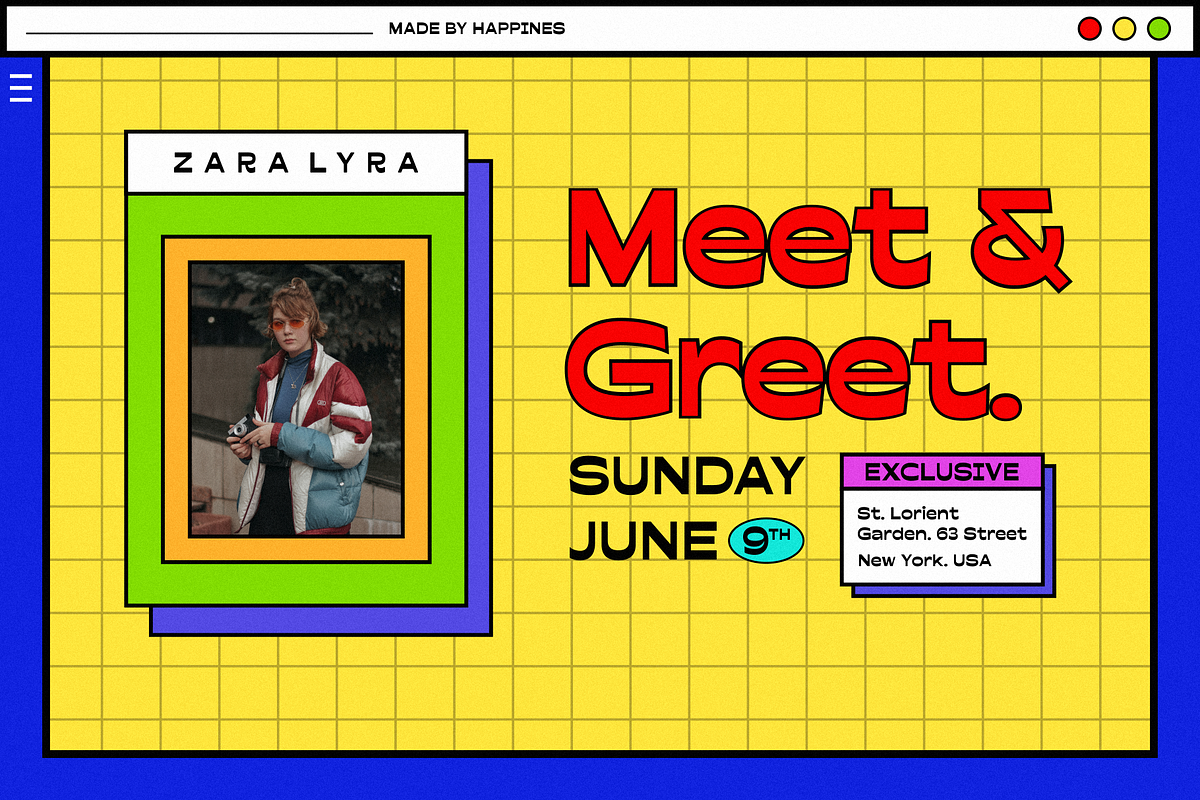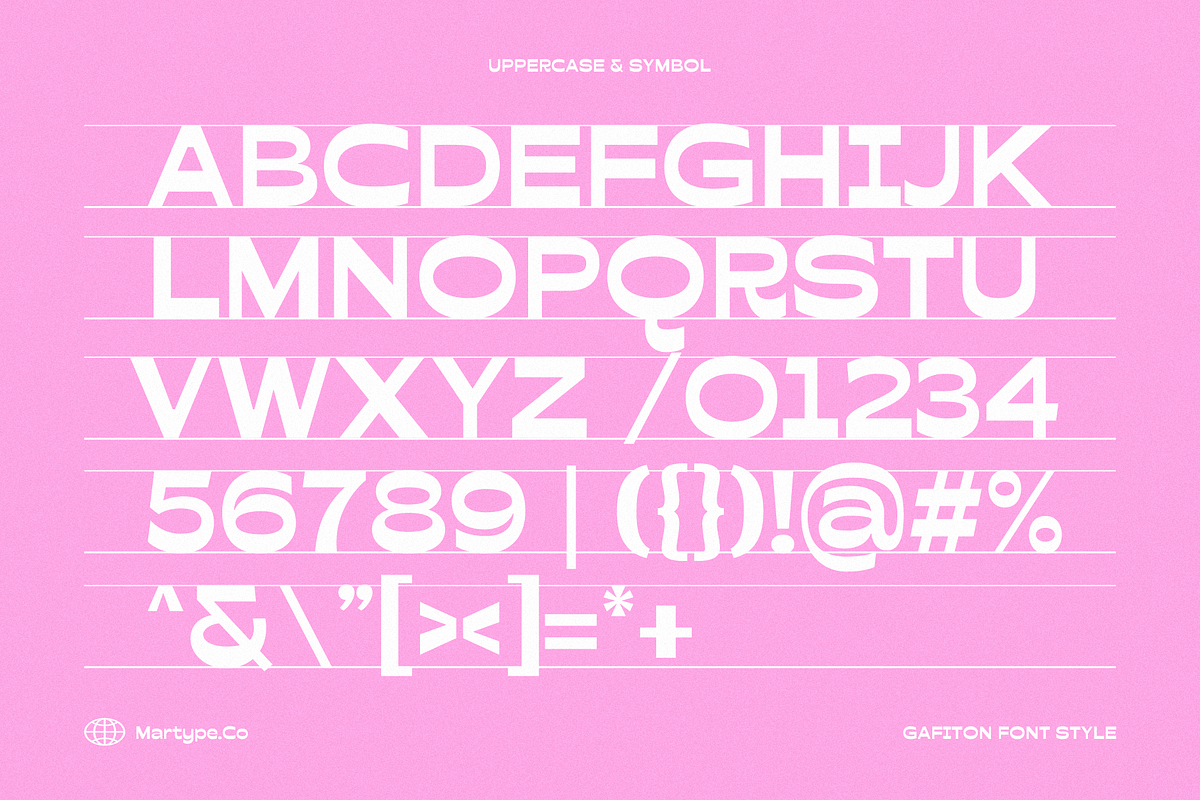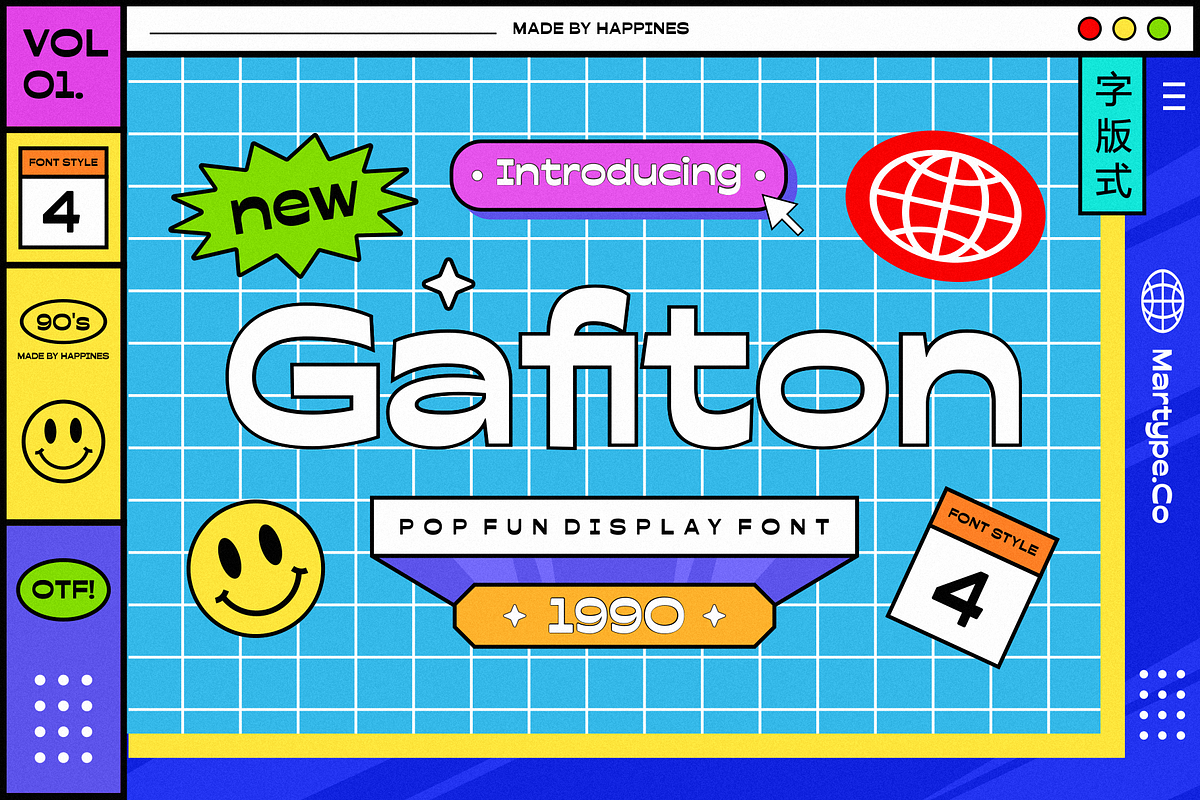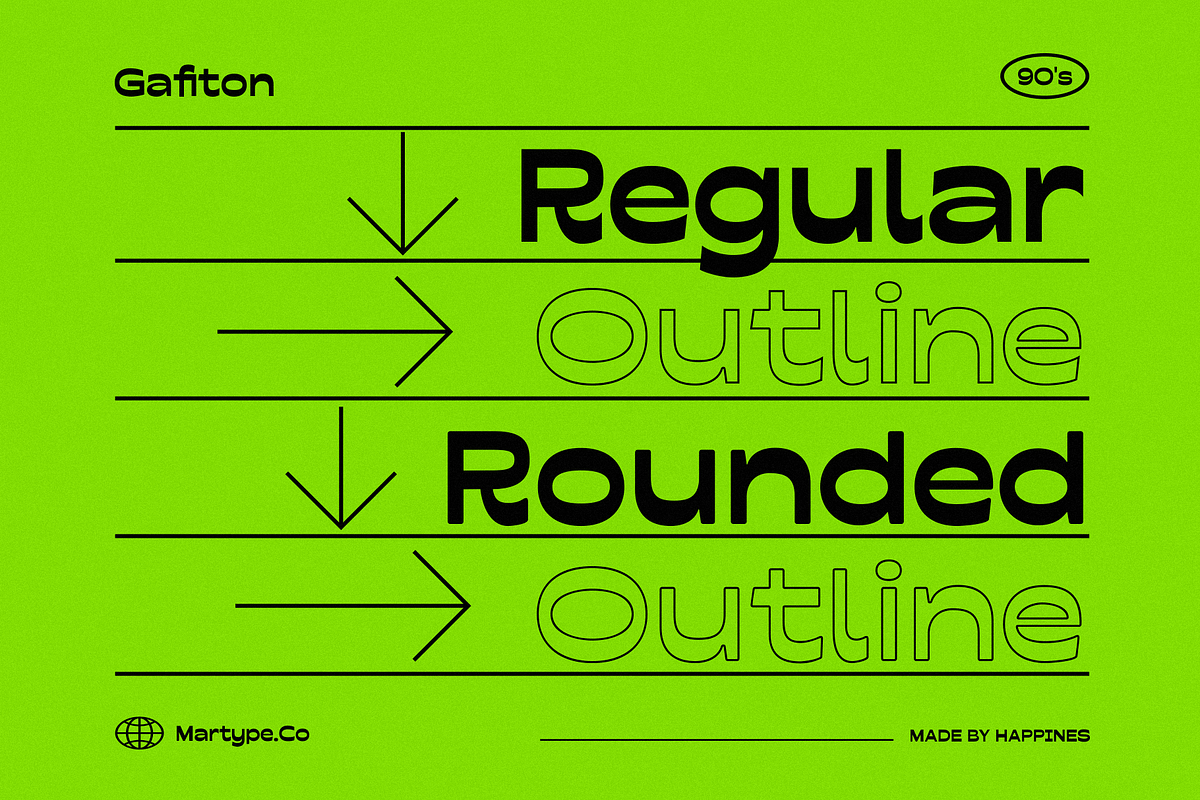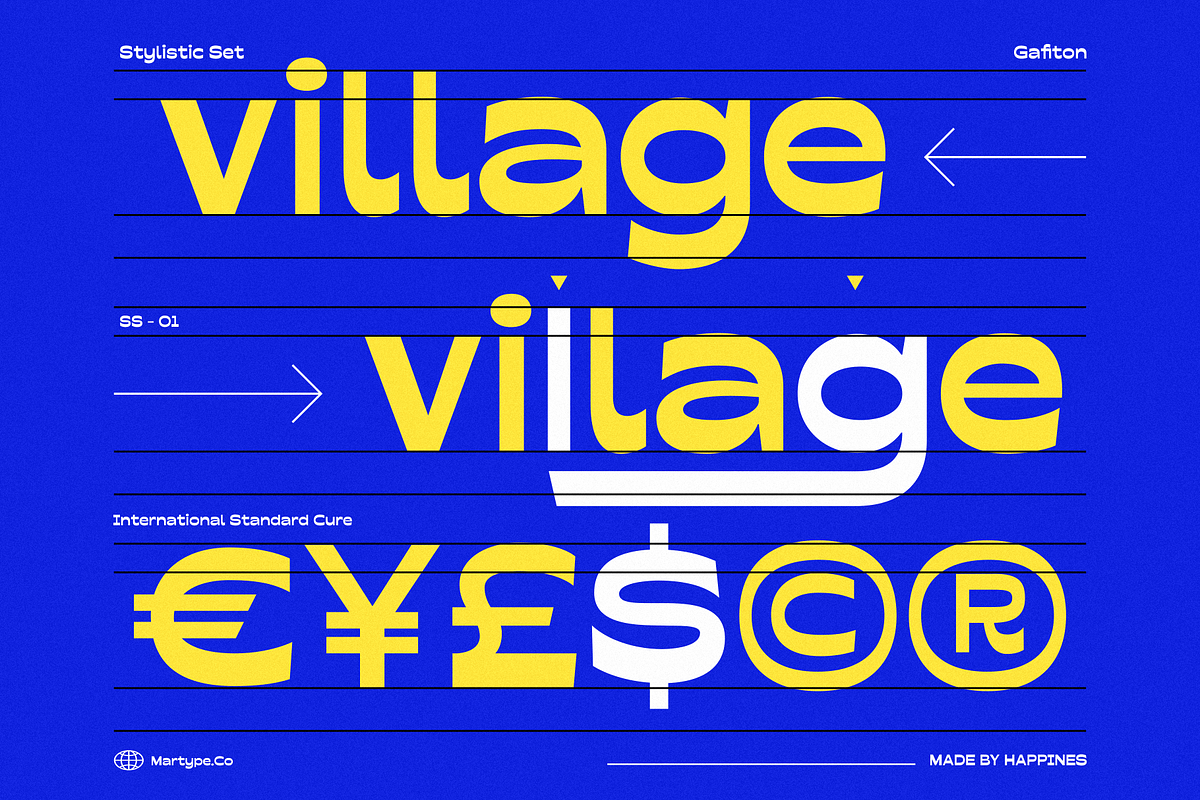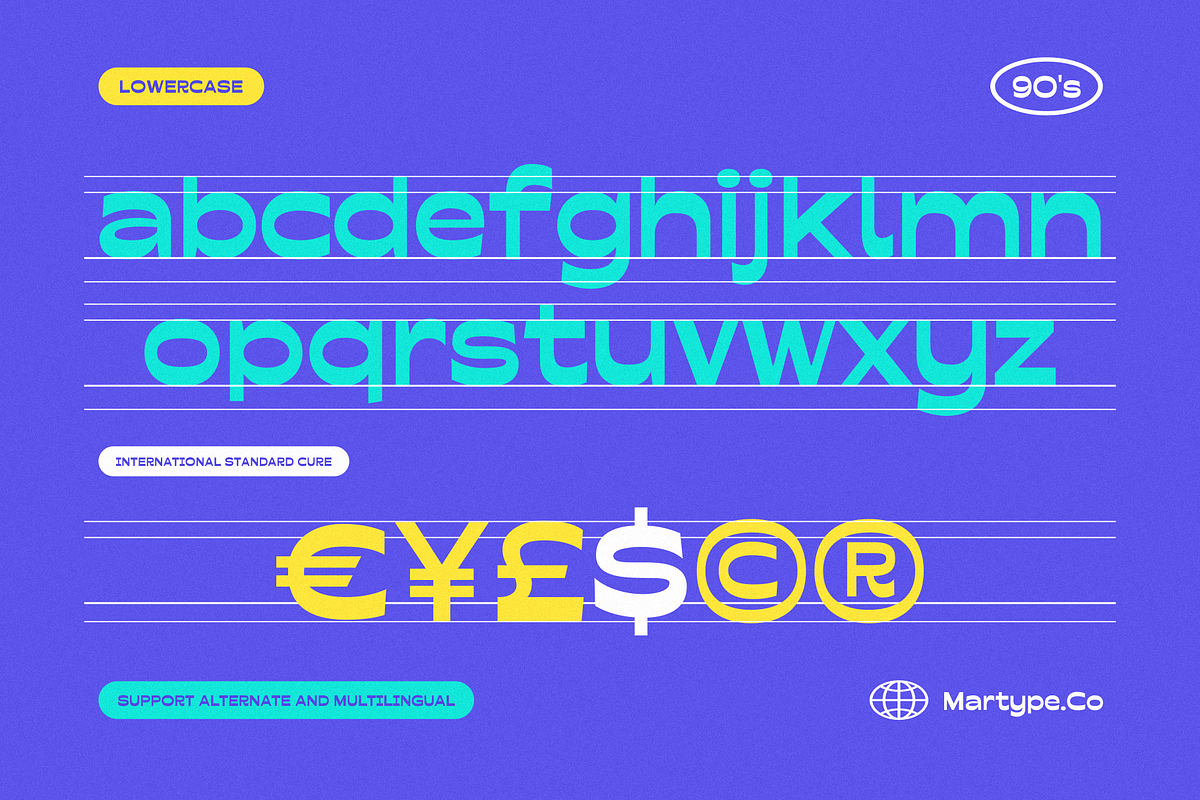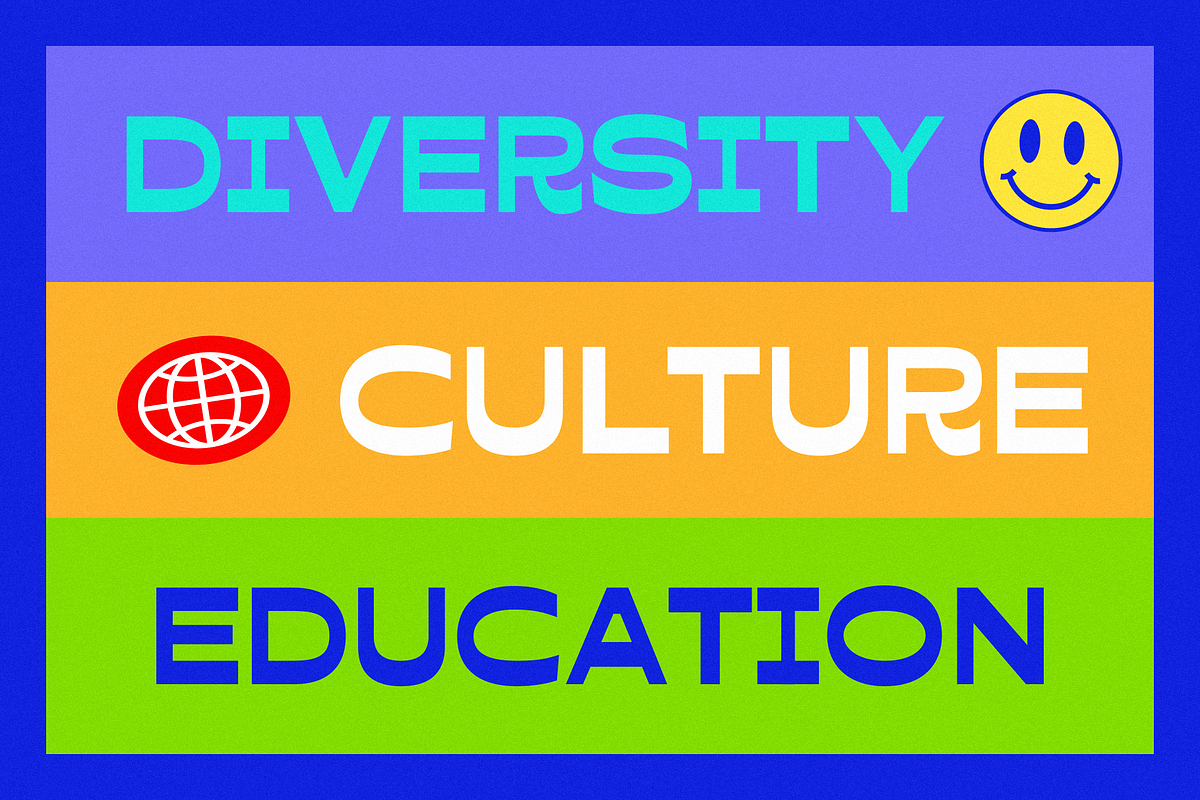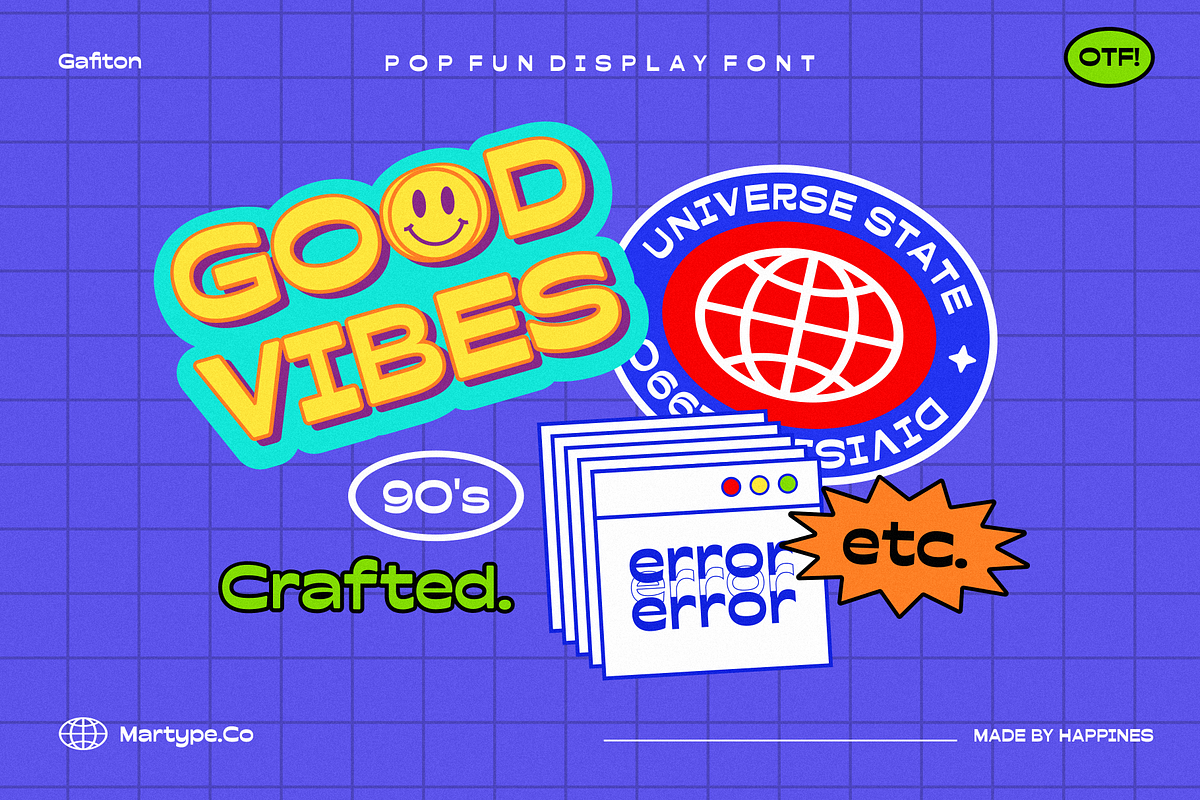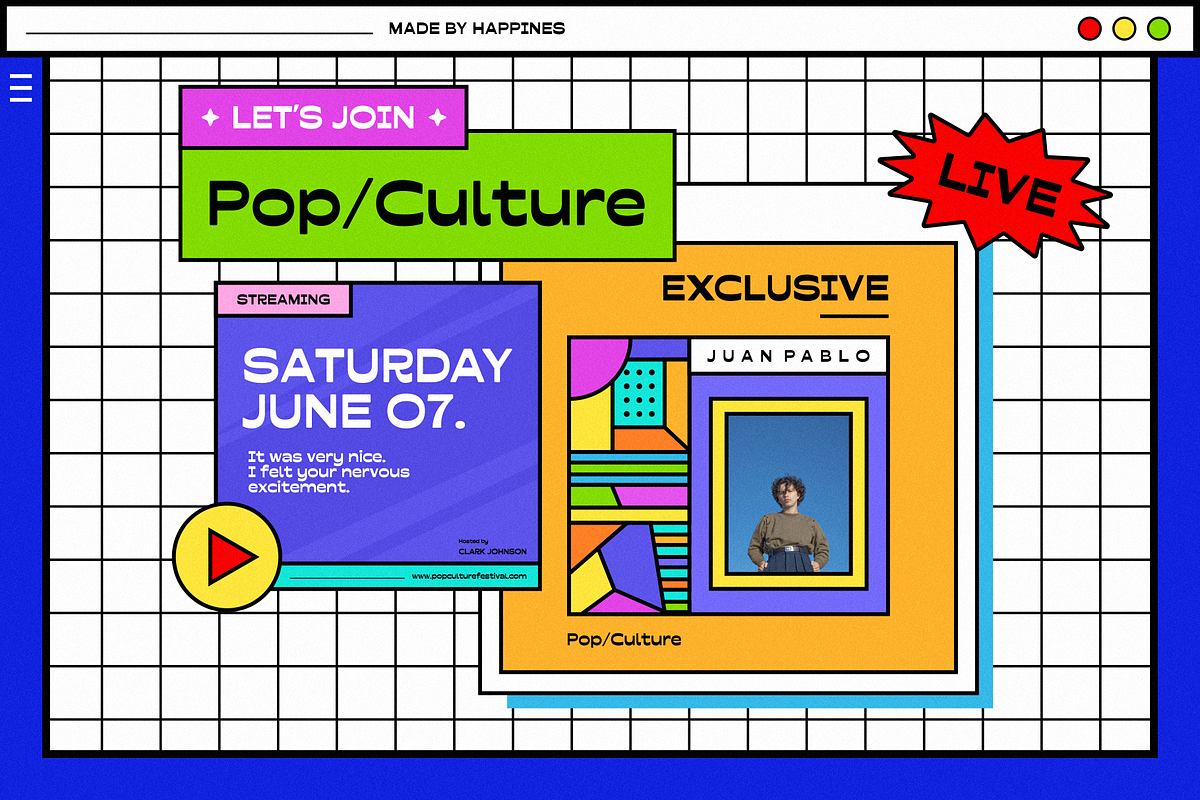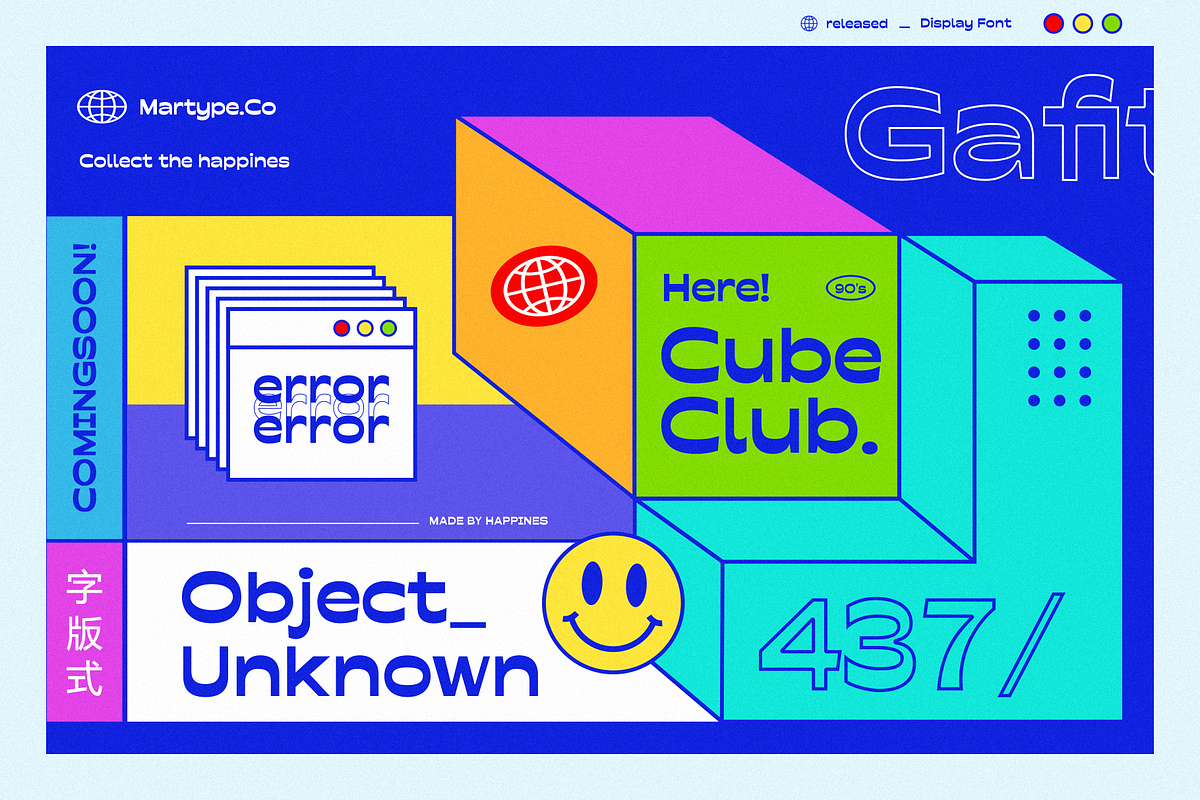
Gafiton - Pop Fun Display Font
Introducing, Gafiton. A reverse contrast bold font suitable for display especially. Perfect for your daily project like for headline poster, packaging, social media, branding, or anything about pop and fun design.
- Gafiton Regular
- Gafiton Rounded
- Gafiton Outline
- Gafiton Rounded Outline
Multilingual Support support many different languages 20+